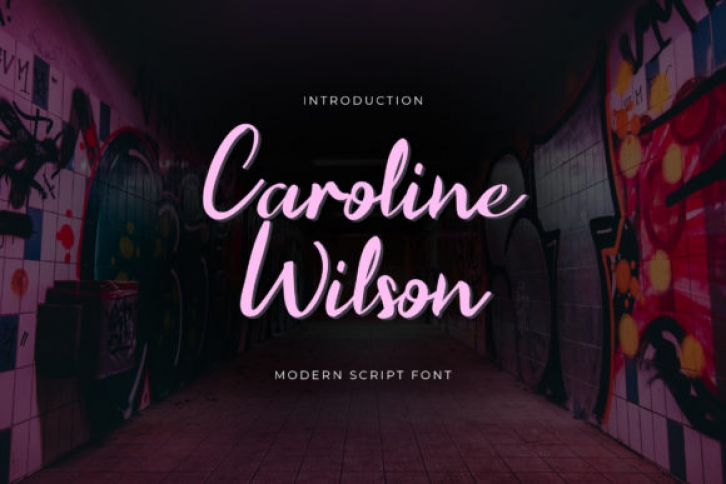
Caroline Wilson is a sweet and flowing script font. It has a trendy vibe and it can be used for a variety of design ideas, both formal and informal. Have fun with this beautiful font and explore its endless variations.